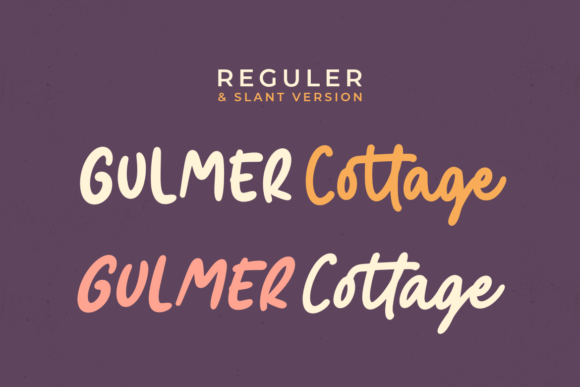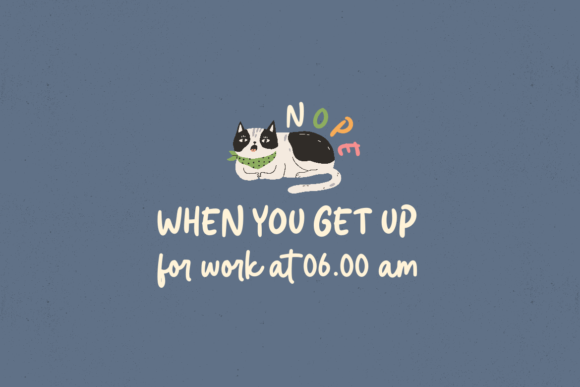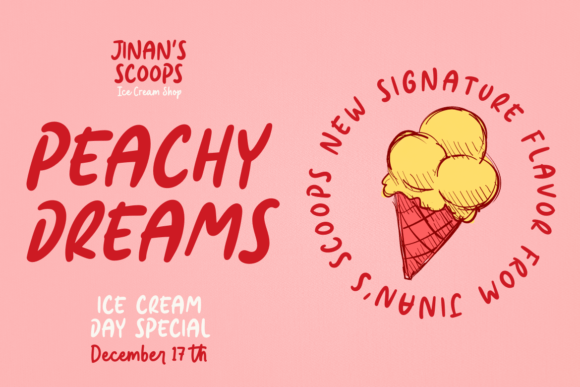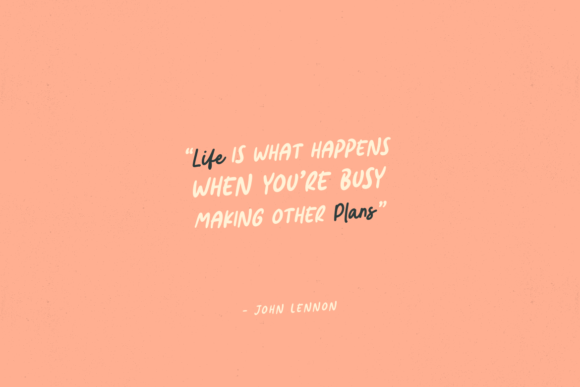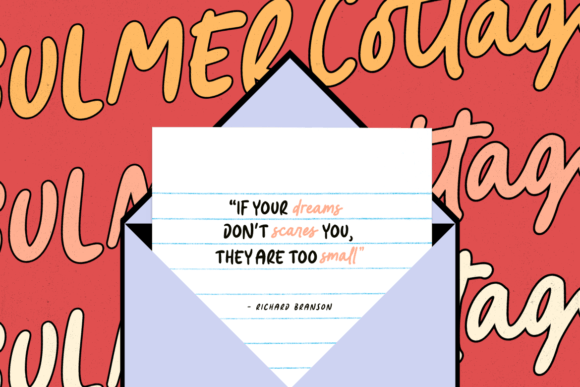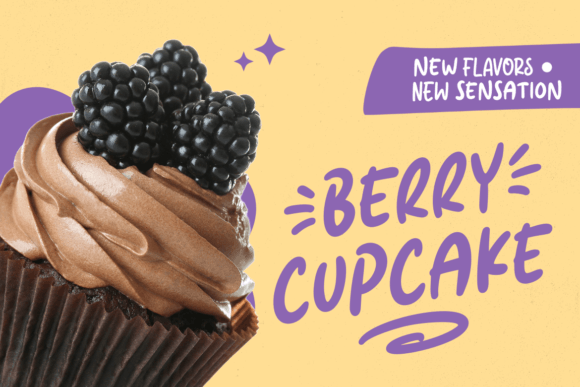
Gulmer Cottage Font Duo: Elevate Your Designs with Whimsical Charm
In the realm of typography, few font duos manage to capture the essence of charm and whimsy as effectively as the Gulmer Cottage Font Duo. This delightful pair of fonts is meticulously designed to infuse your creations with a touch of playfulness and elegance, making it an indispensable asset for designers and crafters alike. Whether you’re working on a branding project, crafting a digital masterpiece, or simply looking to add a personal touch to your stationery, the Gulmer Cottage Font Duo offers a versatile solution that promises to elevate your designs to new heights.
Understanding the Gulmer Cottage Font Duo
The Gulmer Cottage Font Duo is not just any ordinary font pair; it’s a carefully crafted combination of two distinct yet complementary fonts. The duo features a regular version and a slanted version, each bringing its unique flavor to the table. This versatility allows designers to experiment with a myriad of designs, ensuring that there’s always a perfect fit for any project.
The Script Version: Elegance with Ligatures
The script version of the Gulmer Cottage Font Duo is where elegance meets creativity. One of its standout features is the inclusion of engaging ligatures. Ligatures are special characters that combine two or more letters into a single glyph, creating a more fluid and natural reading experience. In the case of the Gulmer Cottage script font, these ligatures add a touch of sophistication and continuity, making it ideal for projects that require a bit of luxury and refinement, such as wedding invitations, high-end branding, and elegant stationery.
The Display Version: Playfulness with Swashes
On the other side of the spectrum, the display version of the Gulmer Cottage Font Duo brings a playful vibe to the forefront. Adorned with playful swashes, this font is perfect for grabbing attention and adding a whimsical touch to your designs. Swashes are decorative elements that can be added to letters to give them a more dynamic and artistic feel. The display version of the Gulmer Cottage font, with its assortment of swashes, is perfect for headings, titles, and any design element where you want to make a statement. It’s particularly effective in designs aimed at a younger audience or for projects that require a dash of creativity and fun.
The true beauty of the Gulmer Cottage Font Duo lies in its ability to offer endless creative possibilities. The combination of the script and display versions provides a broad spectrum of design options. Here are a few ideas on how you can leverage this font duo:
- Branding and Logotypes: Use the script version for a more traditional and elegant brand name, and the display version for taglines or slogans that require a bit of flair.
- Digital and Print Media: Whether you’re designing a blog, a magazine, or a flyer, the Gulmer Cottage Font Duo can add a unique touch that sets your content apart.
- Stationery and Invitations: Add a personal touch to your stationery, wedding invitations, or greeting cards with the elegant and playful options provided by this font duo.
- Web Design: The legibility and charm of the Gulmer Cottage fonts make them suitable for web design, enhancing user experience with their readability and aesthetic appeal.
The Gulmer Cottage Font Duo is more than just a pair of fonts; it’s a tool that unlocks a world of creative potential. Its blend of elegance and playfulness, encapsulated in both a regular and slanted version, offers designers and crafters the flexibility to bring their visions to life. Whether you’re aiming for sophistication, whimsy, or a bit of both, this font duo is sure to become a cherished part of your design arsenal. So, dive into the world of Gulmer Cottage and discover how it can transform your designs with its charming and whimsical touch.